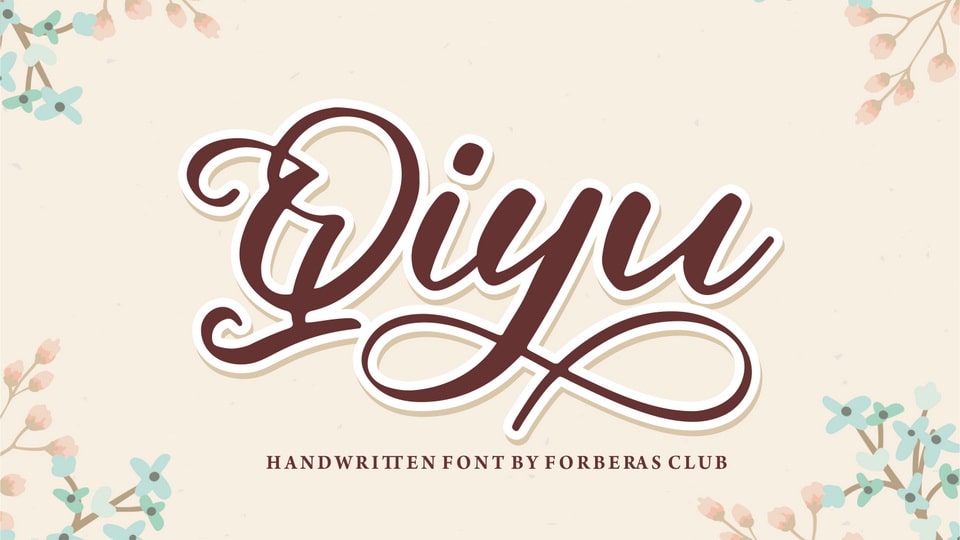
Download Qiyu font, a fancy and elegant handwritten typeface that was created to impress your audience and make your branding shine. Make your projects dance with this elegant and wonderful font, wherever you use it.